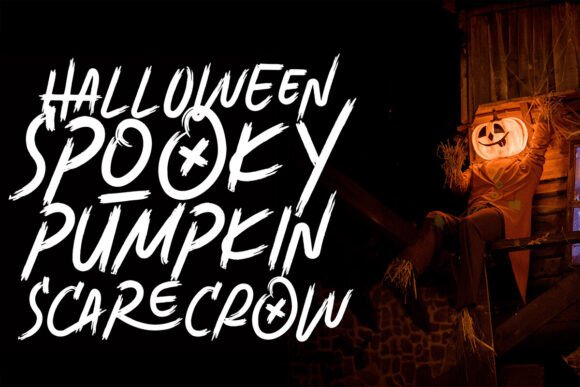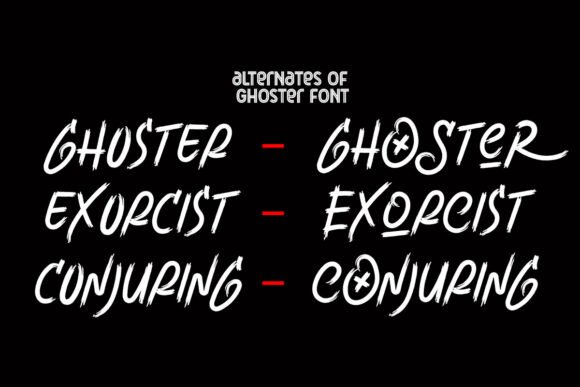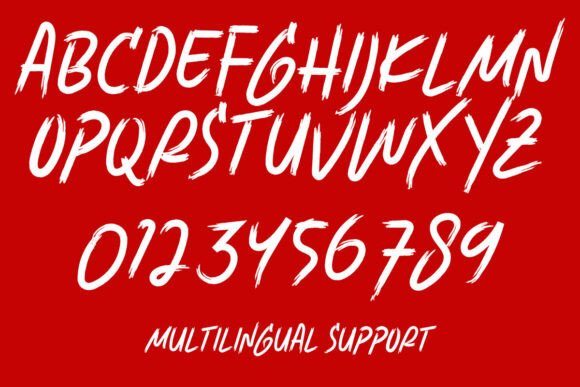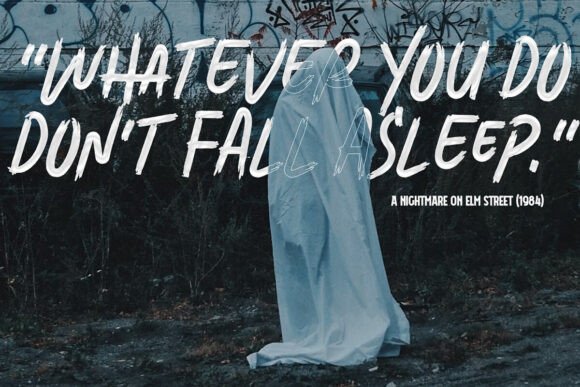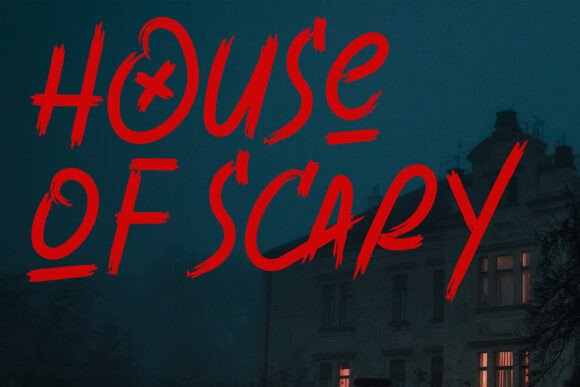
Introducing Ghoster Font: The Ultimate Handwritten Font for Bold Designs
Are you tired of using the same old fonts for your designs? Look no further! Ghoster Font is here to revolutionize your creative projects with its bold and rough style, perfect for making a statement. This stunning handwritten font is designed to give your designs a unique and edgy look, making it ideal for logos, product branding, printable templates, posters, flyers, shirts, and more.
What Makes Ghoster Font Special?
Ghoster Font boasts a distinctive dry brush texture that adds a level of detail and authenticity to your designs. The bold and rough style of this font is perfect for creating eye-catching visuals that demand attention. Whether you’re a designer, crafty DIY enthusiast, or simply someone who loves to get creative, Ghoster Font is the perfect addition to your font collection.
Key Features of Ghoster Font
- Handwritten with a personal touch: Ghoster Font has a unique, handwritten feel that adds a personal touch to your designs.
- Bold and rough style: The font’s bold and rough texture makes it perfect for creating striking visuals.
- Dry brush texture: The detailed dry brush texture gives Ghoster Font a distinctive, authentic look.
- Versatile: Use Ghoster Font for a wide range of projects, from logos and branding to posters, flyers, and more.
Ghoster Font is a dream come true for designers and crafters who want to add a touch of personality to their projects. Whether you’re creating:
- Logos and branding materials: Use Ghoster Font to create a bold and memorable brand identity.
- Printable templates: Add a personal touch to your printable templates, from planners to art prints.
- Posters and flyers: Make your posters and flyers stand out with Ghoster Font’s bold and eye-catching style.
- Shirts and apparel: Use Ghoster Font to create unique and stylish designs for shirts, hoodies, and more.
Tips for Using Ghoster Font
To get the most out of Ghoster Font, here are a few tips:
- Experiment with colors: Try pairing Ghoster Font with bold and bright colors to really make your designs pop.
- Play with texture: Combine Ghoster Font with other textures and patterns to add depth and interest to your designs.
- Keep it simple: Don’t be afraid to use Ghoster Font on its own – its bold style can be stunning on its own.
Ghoster Font is a game-changing addition to any designer’s or crafter’s font collection. Its unique blend of bold and rough style, combined with its detailed dry brush texture, makes it perfect for creating eye-catching visuals. Whether you’re a seasoned pro or just starting out, Ghoster Font is sure to inspire your creativity and take your designs to the next level.